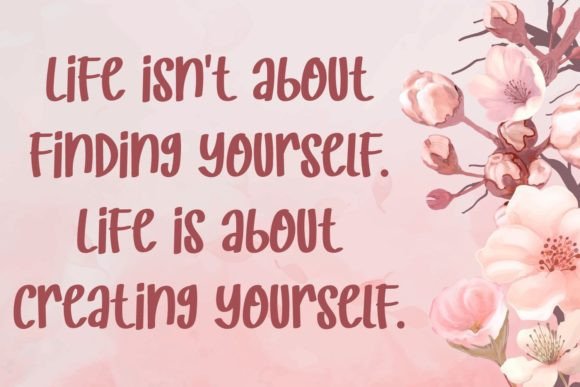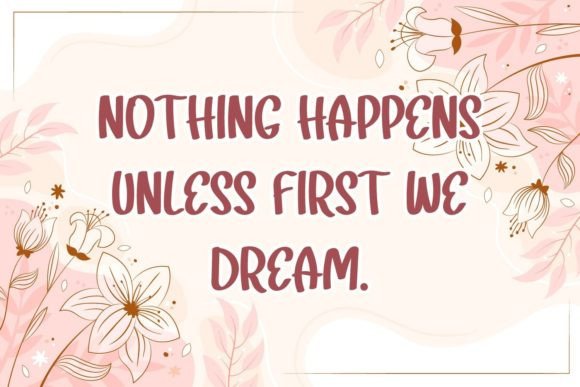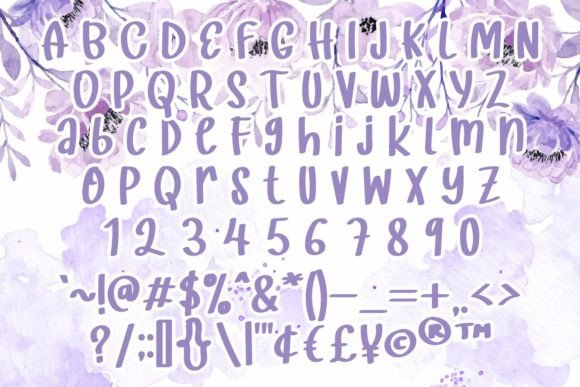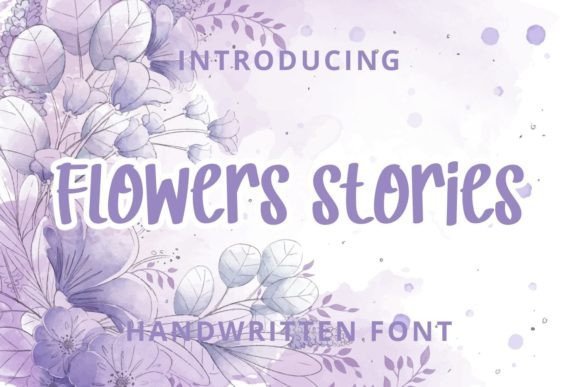
Introduction to Flower Stories Font
Flower Stories is a fun and lovely handwritten font.
It looks stunning on wedding invitations, thank you cards, quotes, greeting cards, logos, business cards, and every other design which needs a playful touch .
Key Features of Flower Stories Font
Why Choose Flower Stories Font?
Flower Stories Font offers exceptional quality and versatility, making it a valuable addition to your design toolkit. Whether you’re creating for personal projects or commercial use, Flower Stories Font delivers professional results.